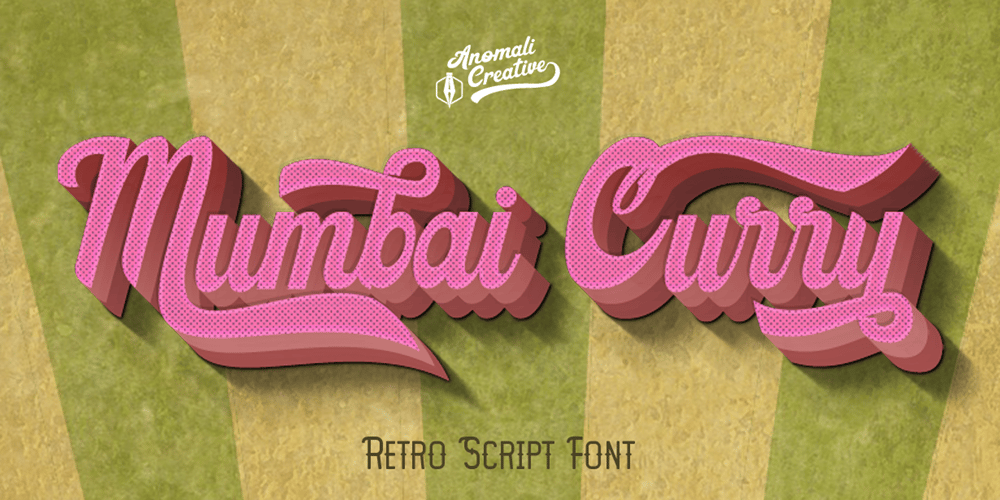
Mumbai Curry
Mumbai Curry font
Mumbai Curry Font Family was designed by A A Ngurah A Krisna Teja and published by Anomali Creative. Mumbai Curry contains 2 styles and family package options. Vintage design refers to an item of another era that holds important and recognizable value. This style can be applied to interior design, decor and other areas. Vintage design is popular and vintage items have risen in price. It also happen on Graphic Design Industry.Now you can give your typography design with a touch of retro style with Mumbai Curry. It contains, many ligature, Stylistic set alternate that can make you have more variation on your Retro Typography project.Mumbai Curry also comes with extra Retro / Vintage Text Effect in PSD Format. So you won’t need extra effort for create a retro effect for this font. This mean it will saves your time.Mumbai Curry was very inspired from the famous retro typography designs in late 60’s untill 70’s.